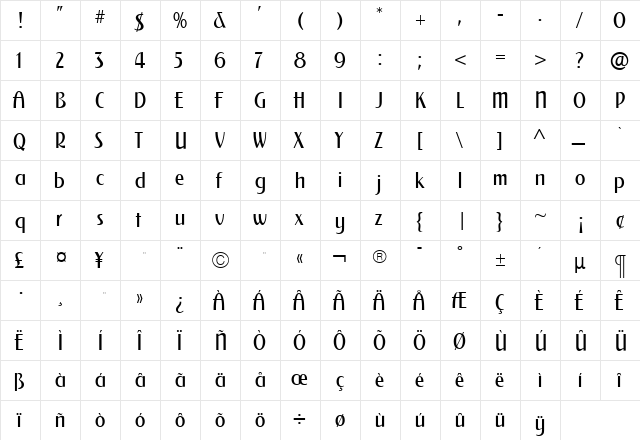
SaintLouisLight Roman
Design Context for SaintLouisLight Typeface
SaintLouisLight takes a measured approach to typography — its balanced proportions and neutral character make it a reliable workhorse for both digital and print work. Its slender proportions lend an understated elegance to any composition.